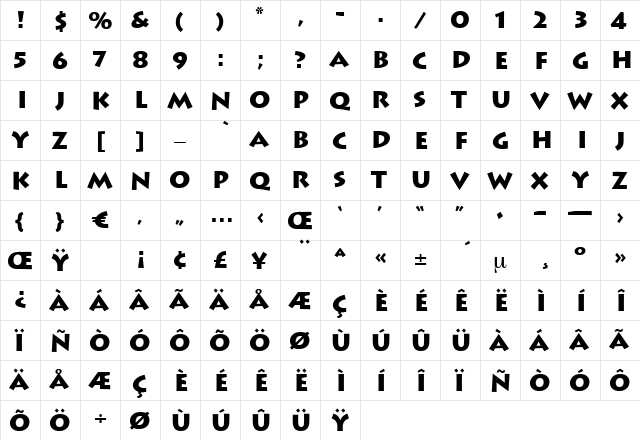
KryptaBold Regular
Design Context for KryptaBold Typeface
KryptaBold is a composed and adaptable typeface that performs quietly and consistently across a wide range of design contexts. Its bold stroke weight gives it real presence on the page.